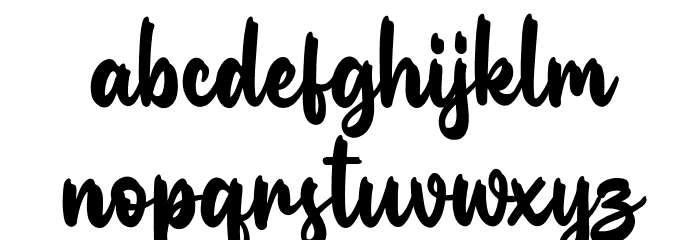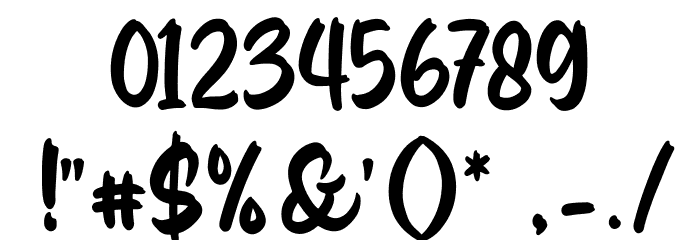
Paisley Cupcake Regular Font
This font features a playful and whimsical style, characterized by its bold and rounded letterforms. The strokes are smooth and flowing, giving it a handwritten appearance. The uppercase and lowercase letters maintain a consistent style, with a slight slant that adds to its casual and friendly look. The numerals are equally bold and match the overall aesthetic, making them easily readable. Special characters are included, maintaining the same playful design. This font is ideal for projects that require a fun and approachable feel, such as children's books, party invitations, or playful branding.
A playful, bold handwritten font with smooth, rounded strokes.
- Proposed Projects: Ideal for children's books, party invitations, playful branding, and casual greeting cards.
- Overall Style: Playful
- Use Case: Headlines, Logos, Invitations